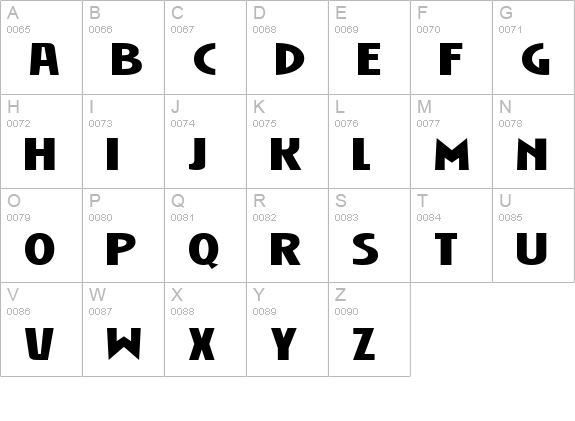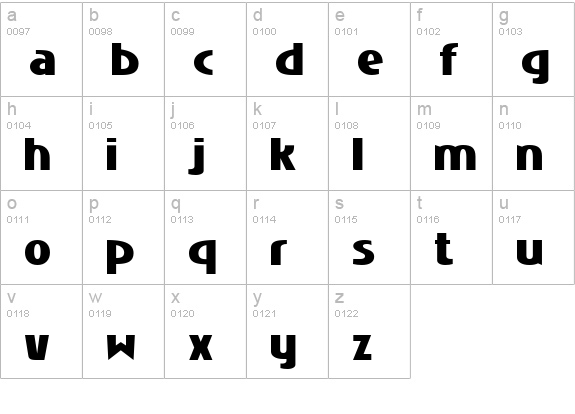
Niobium Black is a maximum-weight, dramatic variant in the Niobium typeface family \xE2\x80\x94 well suited to maximum-impact headlines, posters, and packaging.
Introducing Niobium Black font, a sleek and sophisticated typeface that exudes modernity and elegance. With its bold and stylish design, Niobium Black is the perfect choice for making a statement in your designs. The sharp lines and unique angles of this font give it a contemporary edge that is sure to capture attention. What's even better is that Niobium Black is available for free download at FontsMarket.com. This means you can easily add this stunning font to your collection without any cost. Whether you're working on branding projects, posters, or social media graphics, Niobium Black will elevate your designs to the next level. Don't miss out on the opportunity to enhance your creative projects with the striking Niobium Black font. Download it for free today at FontsMarket.com and start creating eye-catching designs that stand out from the crowd.